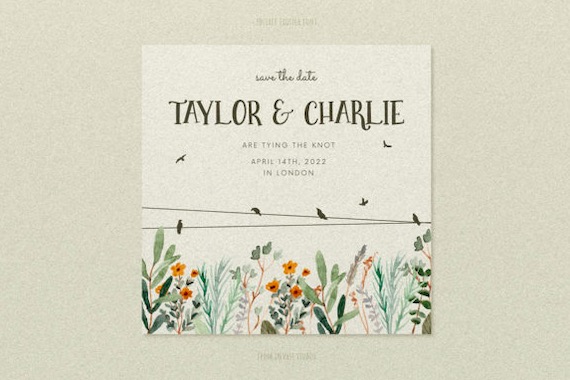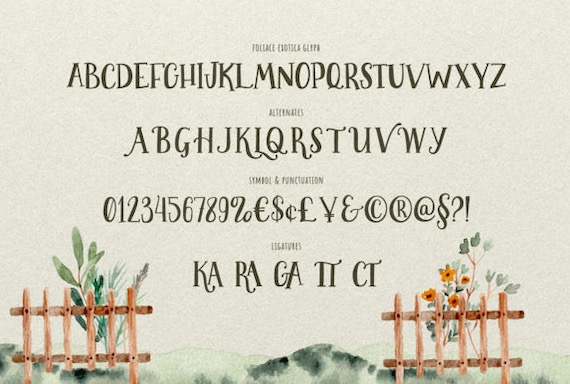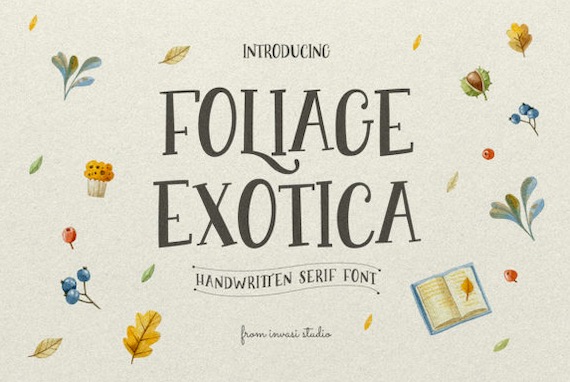
Foliage Exotica is PUA encoded and so, you can access fastly all of the swashes as well as glyphs with ease. This is an elegant display serif font that was created and shared by Invasi Studio. With this font, you can add a playful touch to your projects. Foliage Exotica is perfect for casual types on greeting cards, illustrations, quotes, quaint branding, book covers, children’s books, packaging, and more.
Foliage Exotica Display Serif Font